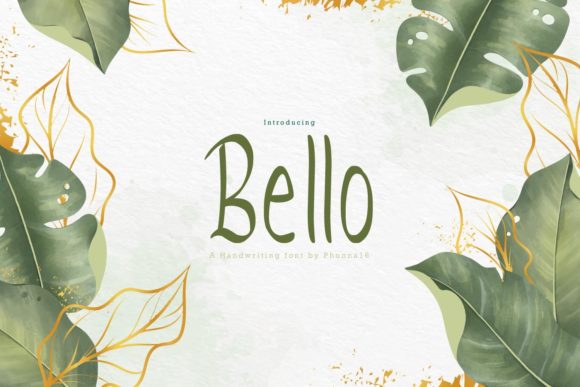
Bello Font: The Sweet and Friendly Display Font for Your Design Needs
When it comes to creating visually appealing designs, typography plays a crucial role. The right font can elevate your project and make it stand out from the crowd. If you’re looking for a font that exudes sweetness and friendliness, look no further than Bello Font. In this article, we’ll dive into the world of Bello Font, exploring its unique features, uses, and benefits.
Bello Font: A Sweet and Friendly Display Font
Bello is a sweet and friendly display font that has taken the design world by storm. Its natural and unique style makes it incredibly fitting for a large pool of designs. The only limit is your imagination! With Bello Font, you can create stunning designs that capture the essence of your brand or project.
Key Features of Bello Font
- Unique Style: Bello Font boasts a one-of-a-kind design that sets it apart from other fonts.
- Sweet and Friendly: The font’s warm and inviting tone makes it perfect for designs that require a personal touch.
- Natural Look: Bello Font’s natural look and feel make it suitable for a wide range of designs, from rustic to modern.
- Highly Versatile: The font’s versatility knows no bounds, making it ideal for various design projects, including logos, posters, and more.
The Many Uses of Bello Font
Bello Font is an incredibly versatile font that can be used in a multitude of design projects. Here are some of the many ways you can utilize Bello Font:
- Logos and Branding: Create a lasting impression with Bello Font, perfect for logos, business cards, and other branding materials.
- Posters and Flyers: Grab attention with Bello Font, ideal for posters, flyers, and other promotional materials.
- Social Media Graphics: Elevate your social media presence with Bello Font, suitable for Facebook, Instagram, Twitter, and more.
- Wedding and Event Designs: Add a touch of sweetness to your wedding or event designs with Bello Font.
The Benefits of Using Bello Font
- Easy to Read: Bello Font is easy to read, making it perfect for designs that require clear communication.
In conclusion, Bello Font is a sweet and friendly display font that can elevate your designs to new heights. With its unique style, versatility, and ease of use, Bello Font is perfect for a wide range of design projects. Whether you’re a seasoned designer or a beginner, Bello Font is sure to become a staple in your design toolkit.